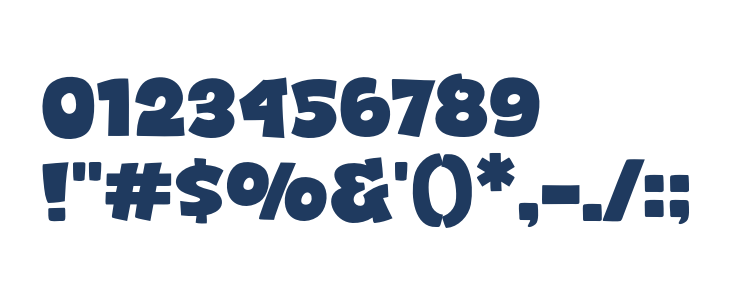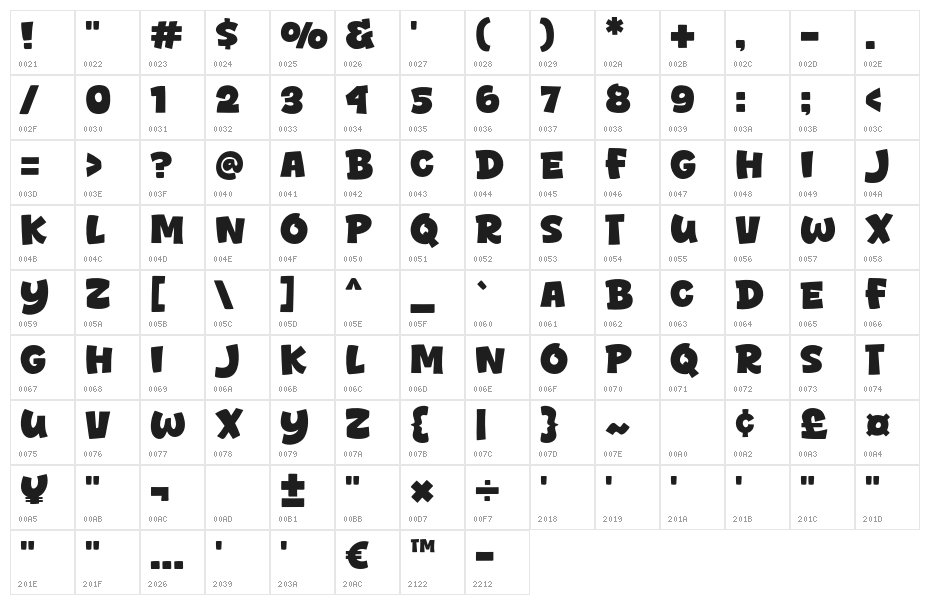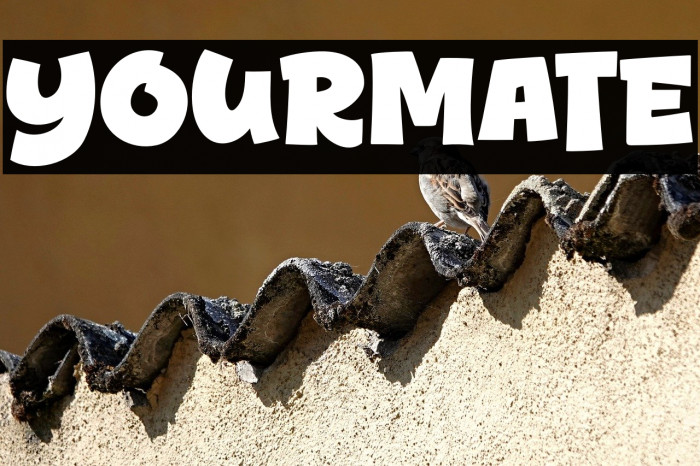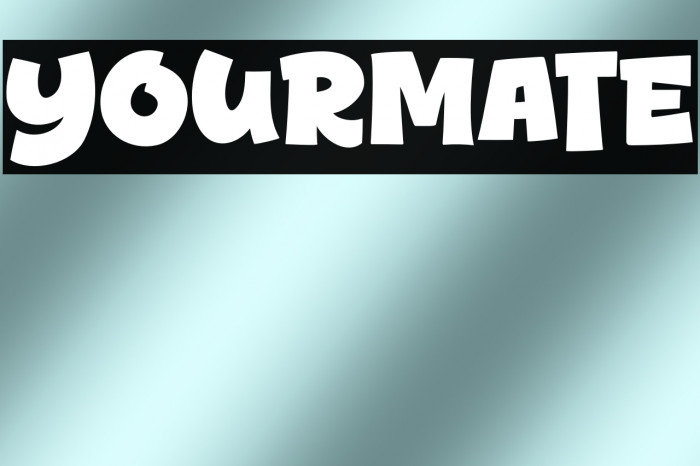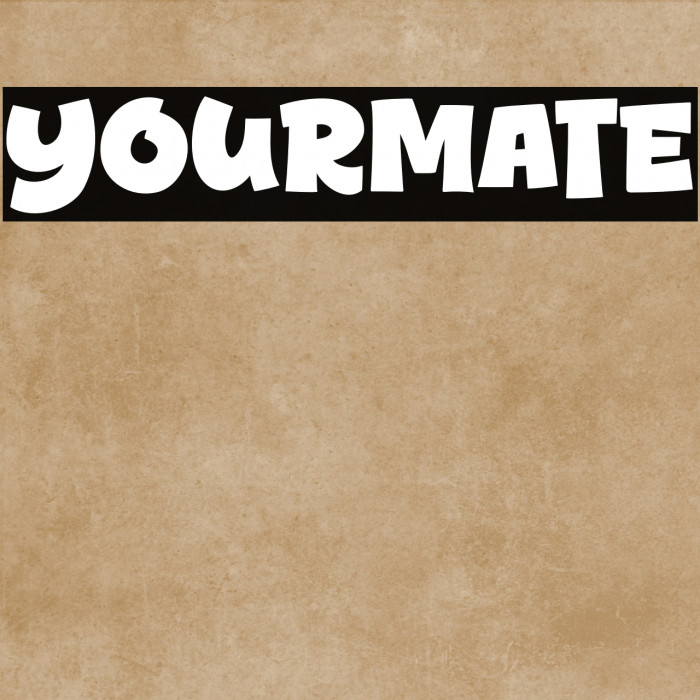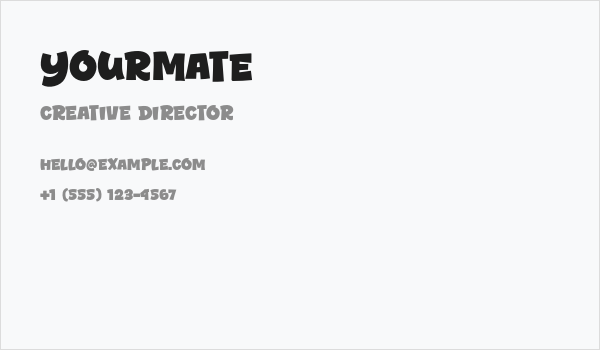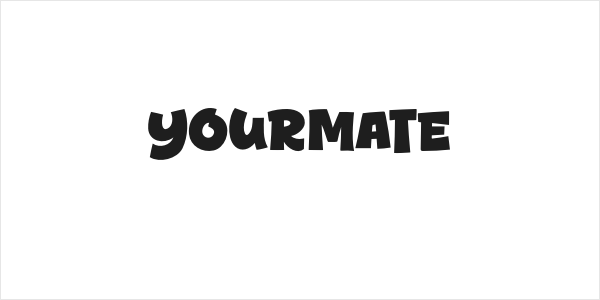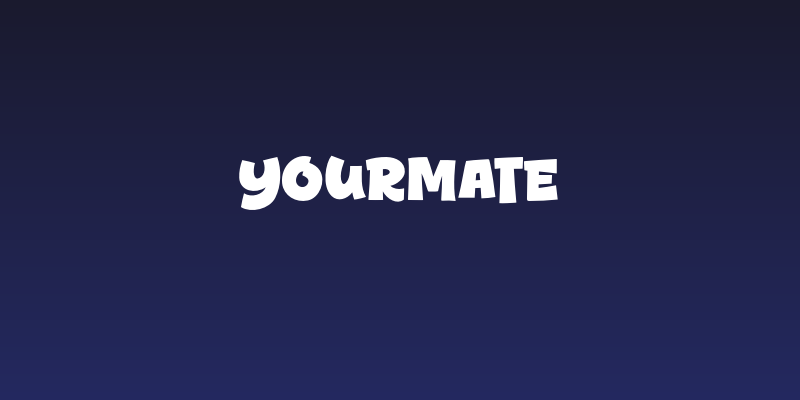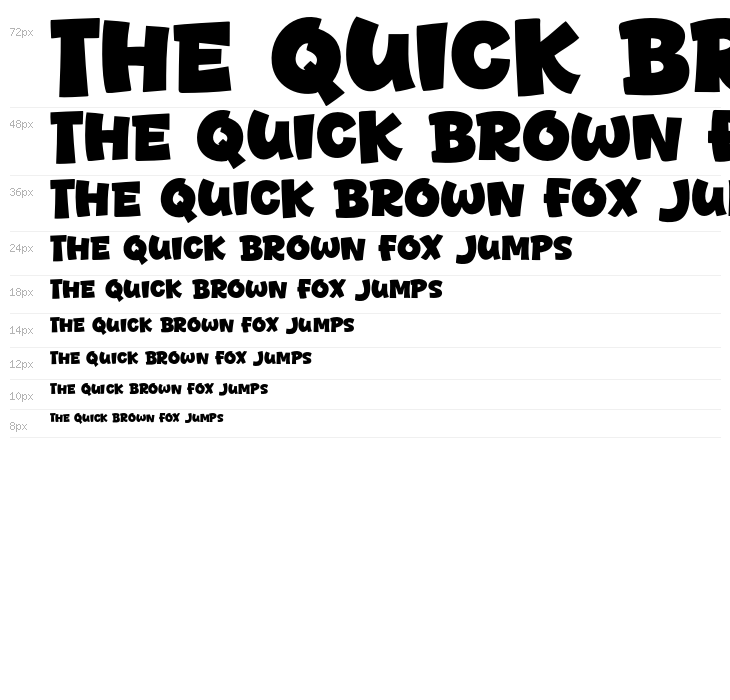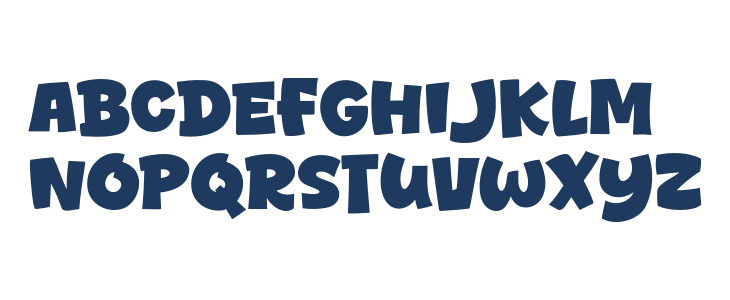
Yourmate Font
This font features bold, playful characters with a cartoonish and exaggerated style. The letters are thick and rounded, giving them a friendly and approachable appearance. The strokes are consistent in width, contributing to a cohesive look across all characters. The overall design is dynamic and lively, with a slight tilt that adds to its whimsical nature. The numbers and special characters maintain the same boldness and playful style, ensuring uniformity throughout the font set.
| Overall Style | Playful, Cartoonish |
| Proposed Projects | Ideal for children's books, comic strips, playful branding, and party invitations. |